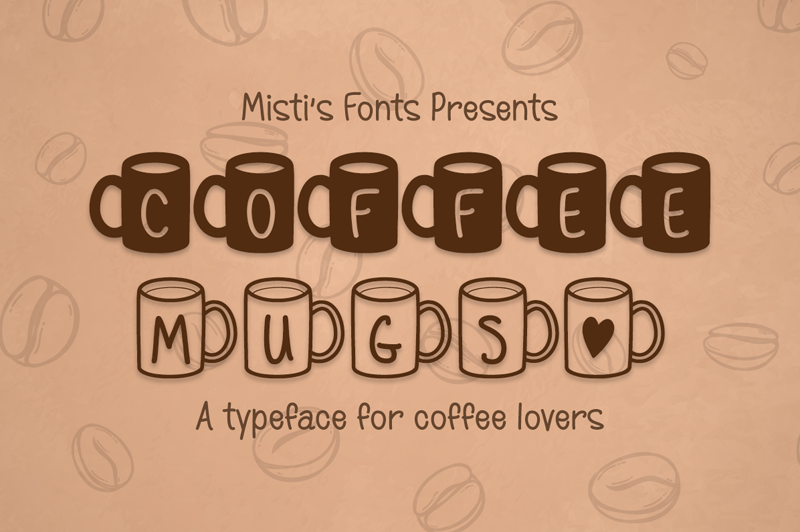
Coffee Mugs is a fun and whimsical decorative typeface. It is perfect for creating personalized projects for the coffee lovers in your life. You can use it for initials and the heart symbol included makes it perfect for couples� initials and for general Valentine�s Day projects. You could also imagine the coffee mugs as hot chocolate for Winter and Christmas projects. Terms Of Use and Commercial Licensing: https://mistifonts.com/mf-coffee-mugs/ |